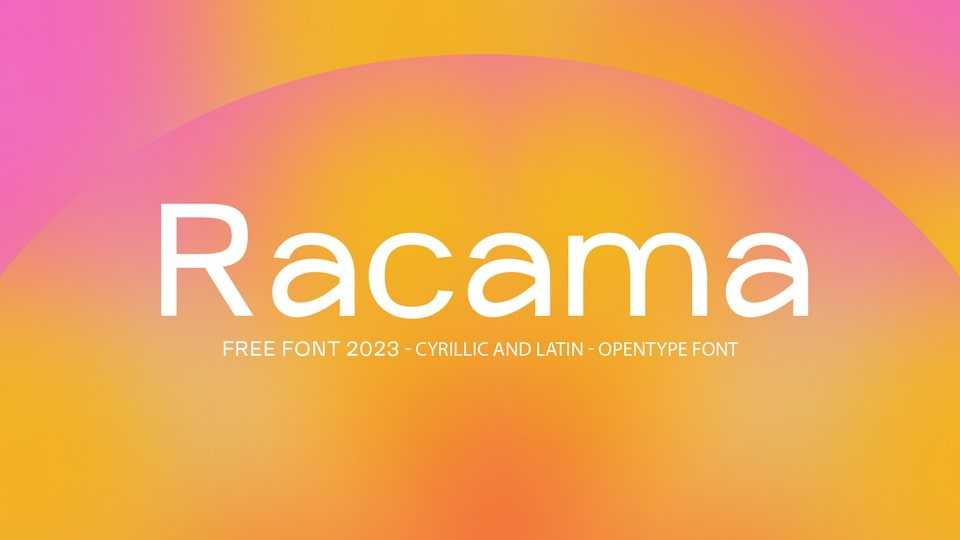
Download Racama font, a versatile sans serif typeface with unique personality. Racama font perfectly works for body texts and any modern media from print to digital.
Designer: Sergey Shishin